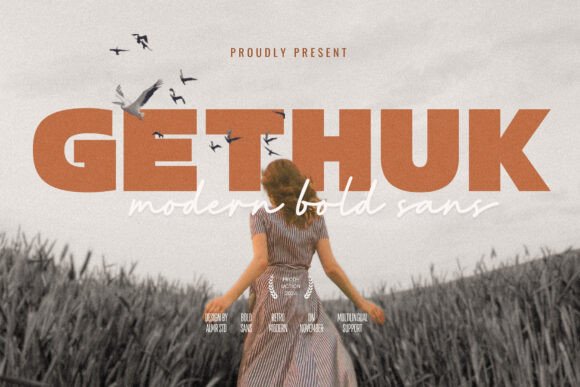
Introducing Gethuk – Modern Bold Sans
In the world of typography, a new font has emerged that’s taking the design community by storm. Say hello to Gethuk, a modern and bold sans-serif font that’s perfect for making a statement. In this article, we’ll dive into the features and benefits of Gethuk, and explore how it can elevate your designs to the next level.
What is Gethuk?
Gethuk is a modern bold font that’s specifically designed for use as a display font for headings, logos, branding, magazines, product packaging, and invitations. Its sleek and clean lines make it perfect for designers and crafters looking to add a touch of sophistication to their work.
Key Features of Gethuk
So, what sets Gethuk apart from other fonts? Here are some of its key features:
- Modern and Bold: Gethuk is a bold font that’s designed to make a statement. Its modern aesthetic makes it perfect for designs that require a fresh and contemporary look.
- Sans-Serif: Gethuk is a sans-serif font, which means it doesn’t have any decorative flourishes or serifs. This makes it perfect for designs that require a clean and minimalist look.
- Highly Versatile: Gethuk is a highly versatile font that can be used for a wide range of design applications, from headings and logos to branding and packaging.
- Easily Readable: Despite its bold nature, Gethuk is surprisingly easy to read, making it perfect for designs that require a clear and concise message.
Benefits of Using Gethuk
So, why should you use Gethuk in your designs? Here are some of the benefits of using this amazing font:
- Adds a Touch of Sophistication: Gethuk adds a touch of sophistication to any design, making it perfect for luxury brands, high-end products, and premium services.
- Grabs Attention: Gethuk is a bold font that’s designed to grab attention. Use it to create eye-catching headings, logos, and titles that draw the viewer in.
- Perfect for Branding: Gethuk is perfect for branding and identity design. Its modern and bold aesthetic makes it ideal for creating memorable and impactful logos.
- Easy to Pair: Gethuk is easy to pair with other fonts, making it perfect for designs that require a combination of fonts.
Design Applications for Gethuk
Gethuk is a highly versatile font that can be used for a wide range of design applications, including:
- Headings and Titles: Use Gethuk to create bold and eye-catching headings and titles that grab attention.
- Logos and Branding: Gethuk is perfect for creating memorable and impactful logos that make a statement.
- Magazines and Publications: Use Gethuk to add a touch of sophistication to your magazine or publication.
- Product Packaging: Gethuk is perfect for product packaging, adding a touch of modernity and sophistication to your designs.
- Invitations and Events: Use Gethuk to create beautiful and elegant invitations and event materials.
In conclusion, Gethuk is a modern bold sans-serif font that’s perfect for designers and crafters looking to add a touch of sophistication to their work. Its highly versatile nature makes it perfect for a wide range of design applications, from headings and logos to branding and packaging. With its clean and modern aesthetic, Gethuk is sure to elevate your designs to the next level.